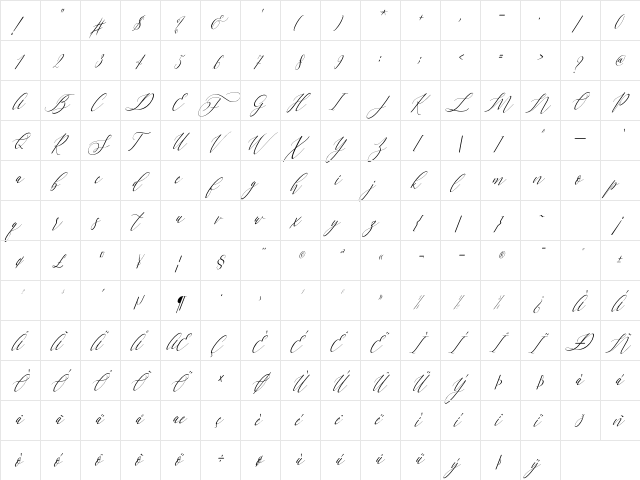
Letternisa Slant Regular
Design Context for Letternisa Slant Typeface
Letternisa Slant is a composed and adaptable typeface that performs quietly and consistently across a wide range of design contexts.
Pro Tip: Pair Letternisa Slant with a font of contrasting weight or personality to build a more expressive typographic hierarchy.